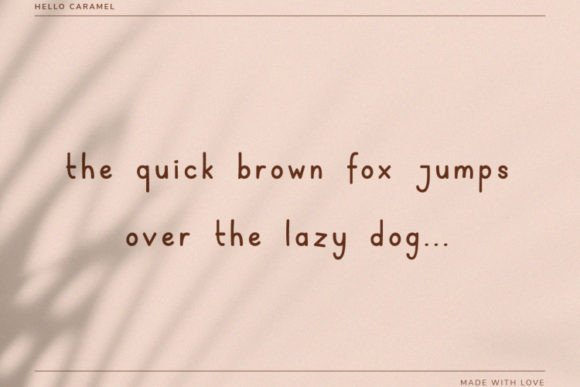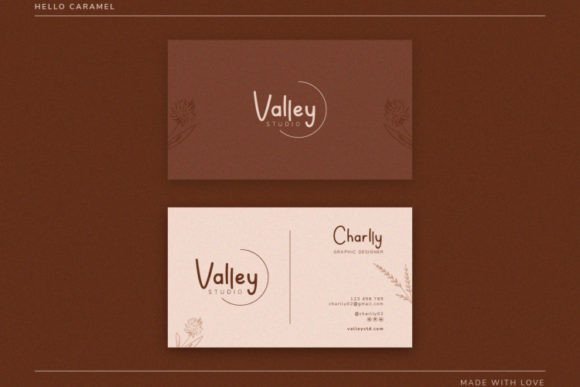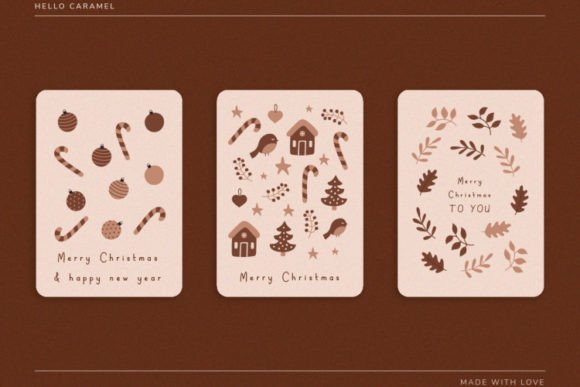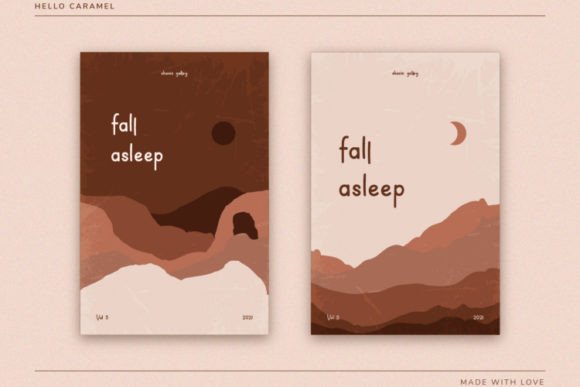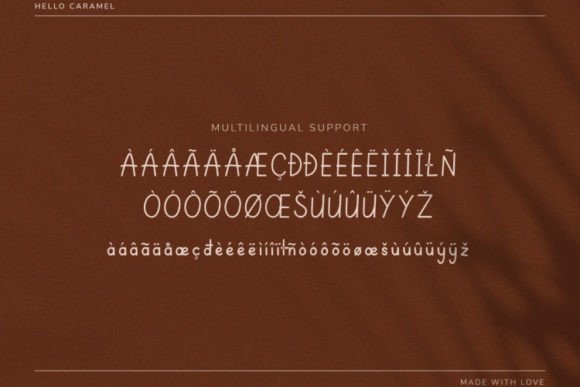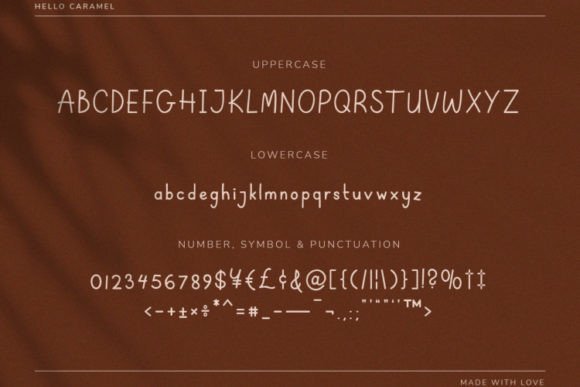
Hello Caramel Font: Elevate Your Designs with Elegance and Sophistication
Are you a designer or crafter looking for a font that exudes elegance and sophistication? Look no further than Hello Caramel Font. This stunning handwritten font is perfect for adding a touch of whimsy and romance to your designs. In this article, we’ll dive into the world of Hello Caramel Font and explore its features, uses, and benefits.
What is Hello Caramel Font?
Hello Caramel Font is a stylish and elegant handwritten font that is perfect for a variety of design projects. Its flowing script and delicate lines make it an ideal choice for designs that require a touch of sophistication and glamour. Whether you’re working on a wedding invitation, a thank you card, or a business logo, Hello Caramel Font is sure to impress.
Features of Hello Caramel Font
Hello Caramel Font boasts a range of features that make it a standout choice for designers and crafters. Some of its key features include:
- Handwritten script: Hello Caramel Font has a beautiful, handwritten script that adds a touch of personality to your designs.
- Elegant lines: The font’s delicate lines and flowing curves make it perfect for designs that require a touch of sophistication.
- Versatile: Hello Caramel Font can be used for a wide range of design projects, from wedding invitations to business cards.
- Easy to read: Despite its elegant script, Hello Caramel Font is easy to read, making it perfect for designs that require a clear and concise message.
Uses of Hello Caramel Font
Hello Caramel Font is a versatile font that can be used for a wide range of design projects. Some of its most popular uses include:
- Wedding invitations: Hello Caramel Font is a popular choice for wedding invitations, adding a touch of romance and elegance to your design.
- Thank you cards: The font’s elegant script makes it perfect for thank you cards, adding a touch of sophistication to your message.
- Quotes and posters: Hello Caramel Font is a great choice for quotes and posters, adding a touch of whimsy and personality to your design.
- Greeting cards: The font’s flowing script makes it perfect for greeting cards, adding a touch of elegance to your message.
- Logos and business cards: Hello Caramel Font can also be used for logos and business cards, adding a touch of sophistication and professionalism to your brand.
Benefits of Using Hello Caramel Font
There are many benefits to using Hello Caramel Font in your designs. Some of the most significant advantages include:
- Elegance and sophistication: Hello Caramel Font adds a touch of elegance and sophistication to your designs, making them perfect for special occasions and formal events.
- Unique and eye-catching: The font’s handwritten script and delicate lines make it unique and eye-catching, setting your designs apart from the crowd.
- Versatile: The font’s versatility makes it perfect for a wide range of design projects, from wedding invitations to business cards.
Tips for Using Hello Caramel Font
To get the most out of Hello Caramel Font, here are a few tips to keep in mind:
- Use it sparingly: Hello Caramel Font is a elegant and sophisticated font, so use it sparingly to avoid overwhelming your design.
- Pair it with a sans-serif font: Pairing Hello Caramel Font with a sans-serif font can create a beautiful contrast and add visual interest to your design.
- Experiment with colors: Hello Caramel Font looks great in a range of colors, so experiment with different colors to find the one that works best for your design.
Hello Caramel Font is a stunning handwritten font that is perfect for designers and crafters looking to add a touch of elegance and sophistication to their designs. Its flowing script, delicate lines, and versatility make it a great choice for a wide range of design projects, from wedding invitations to business cards. With its ease of use and unique style, Hello Caramel Font is sure to become a favorite in your design arsenal.